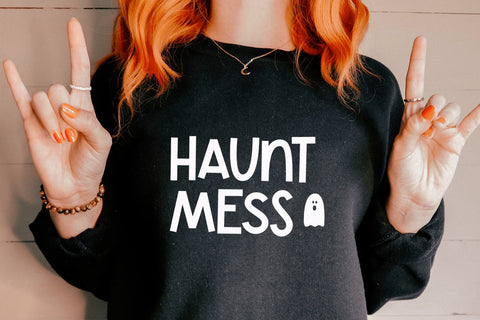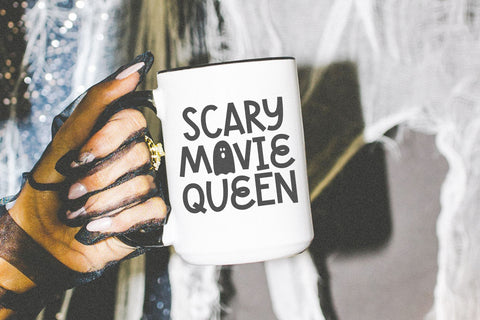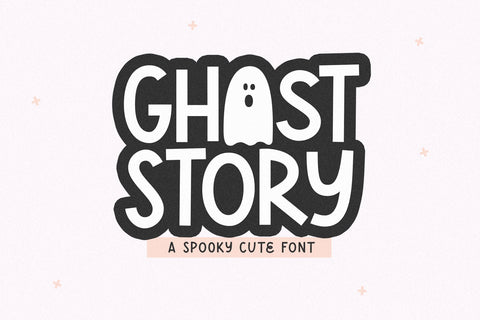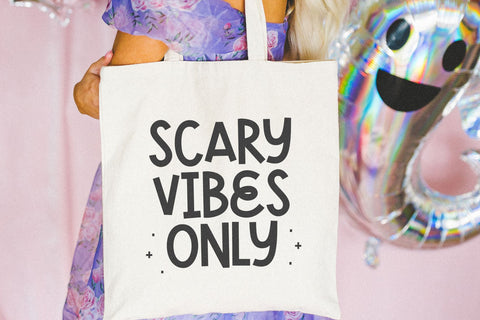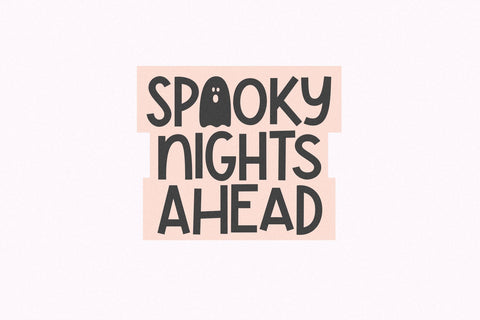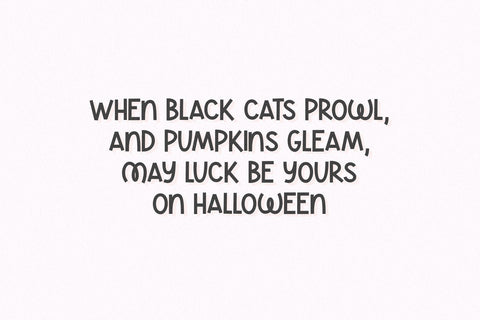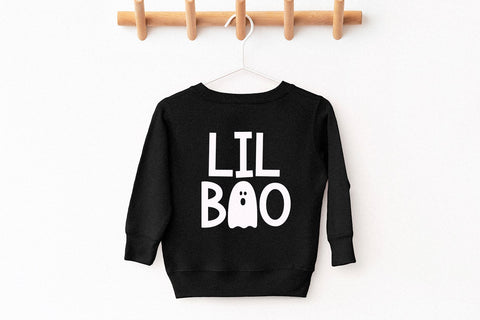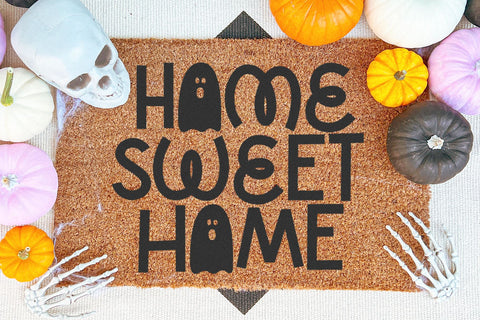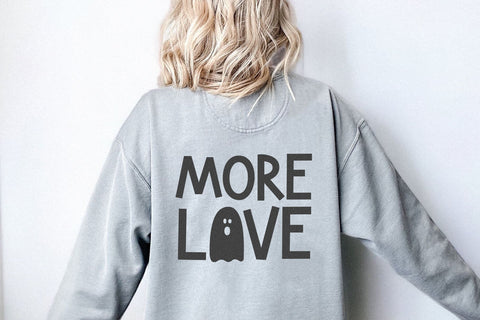
Ghost Story - Cute Halloween Font
Ghost Story is a spooky font perfect for your halloween designs!
Use this font for shirts, logos, doormats, stickers, procreate designs, instagram quotes, spooky svg files and more!